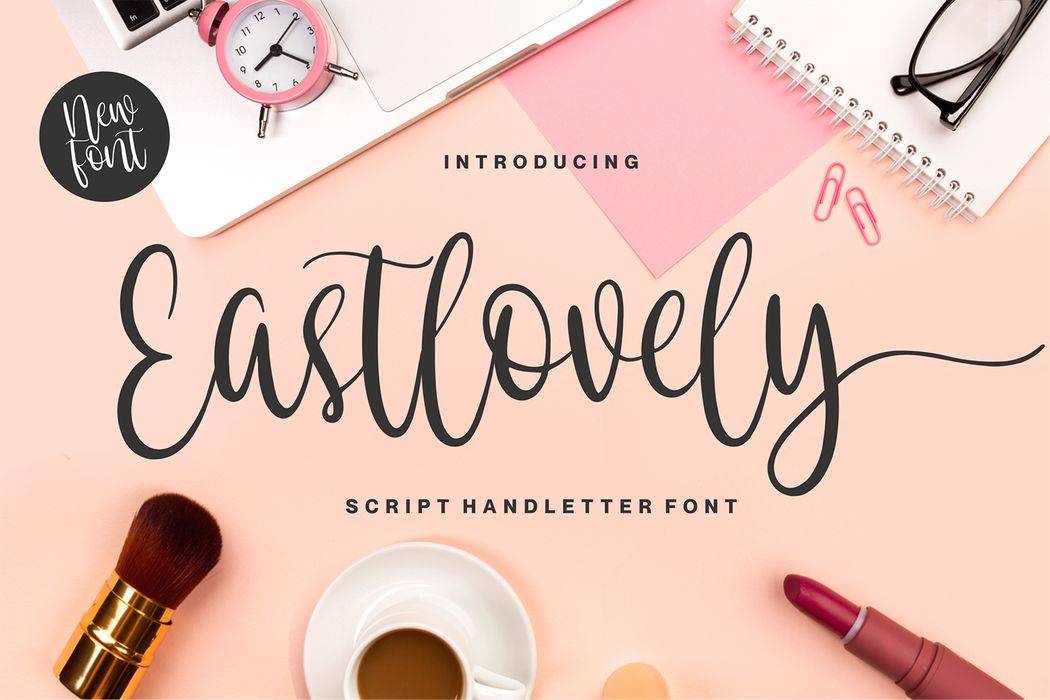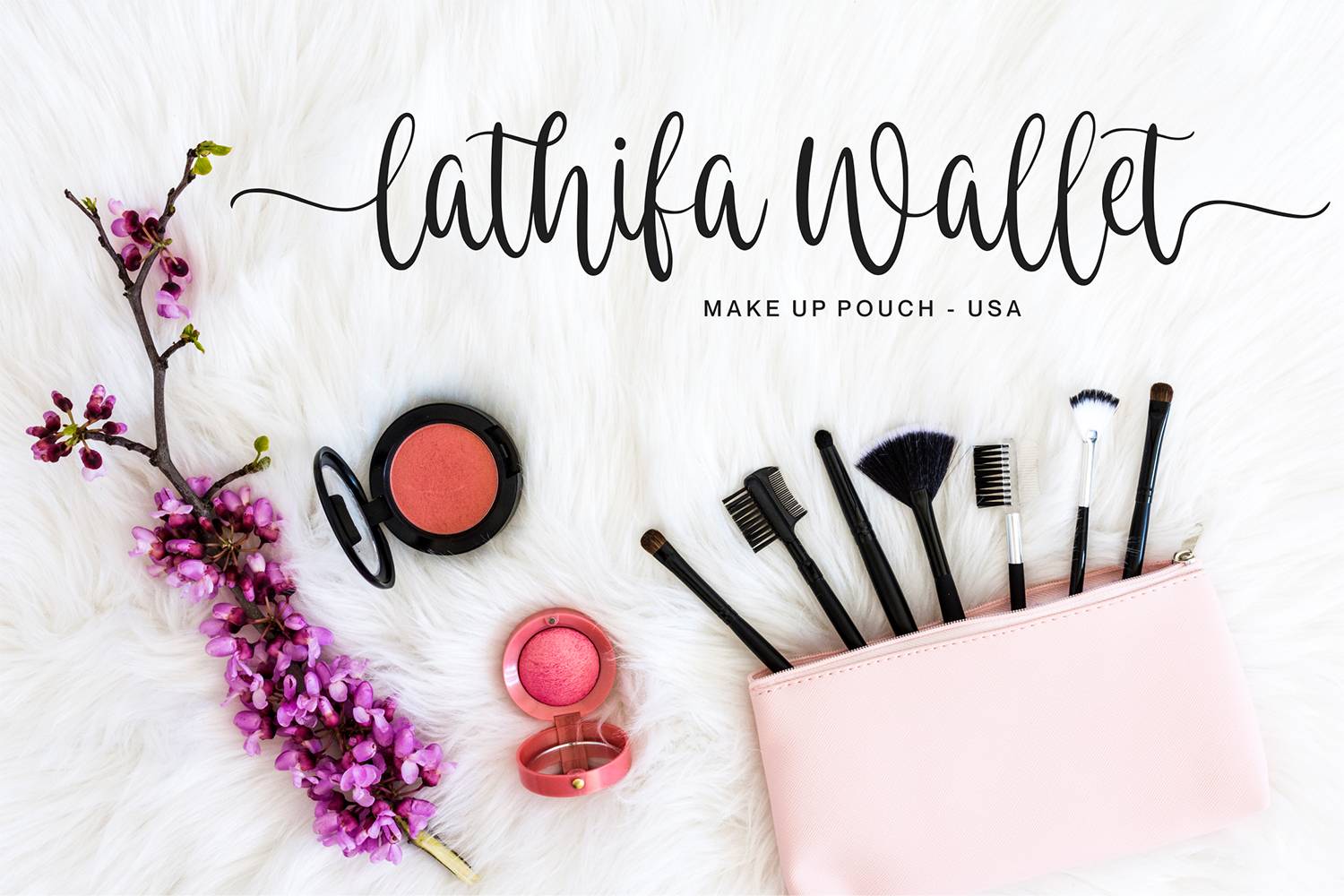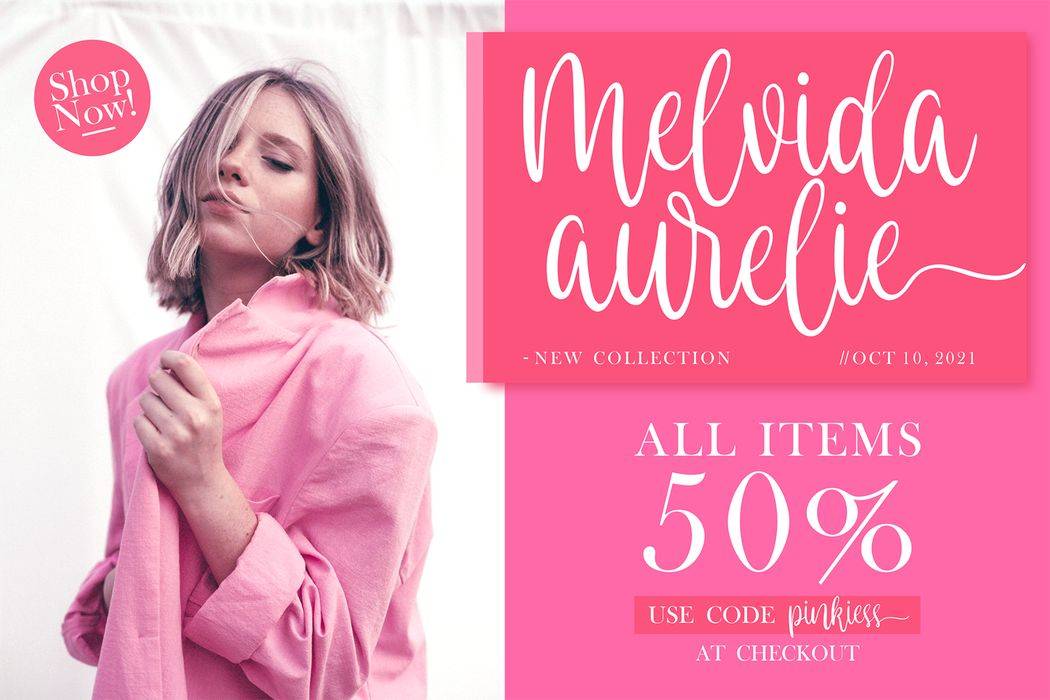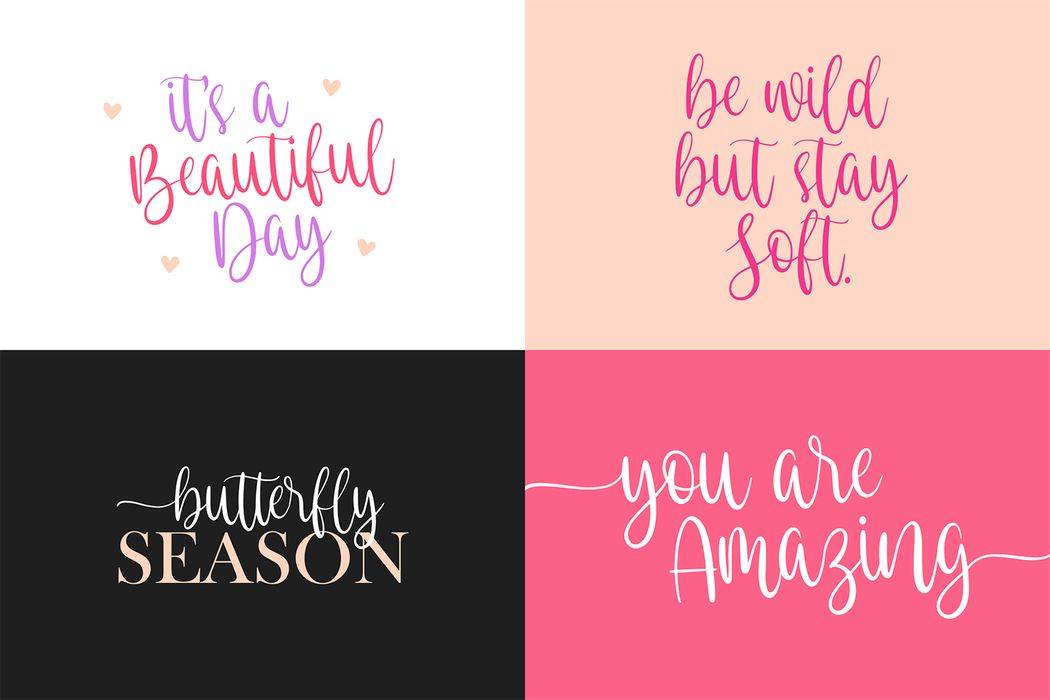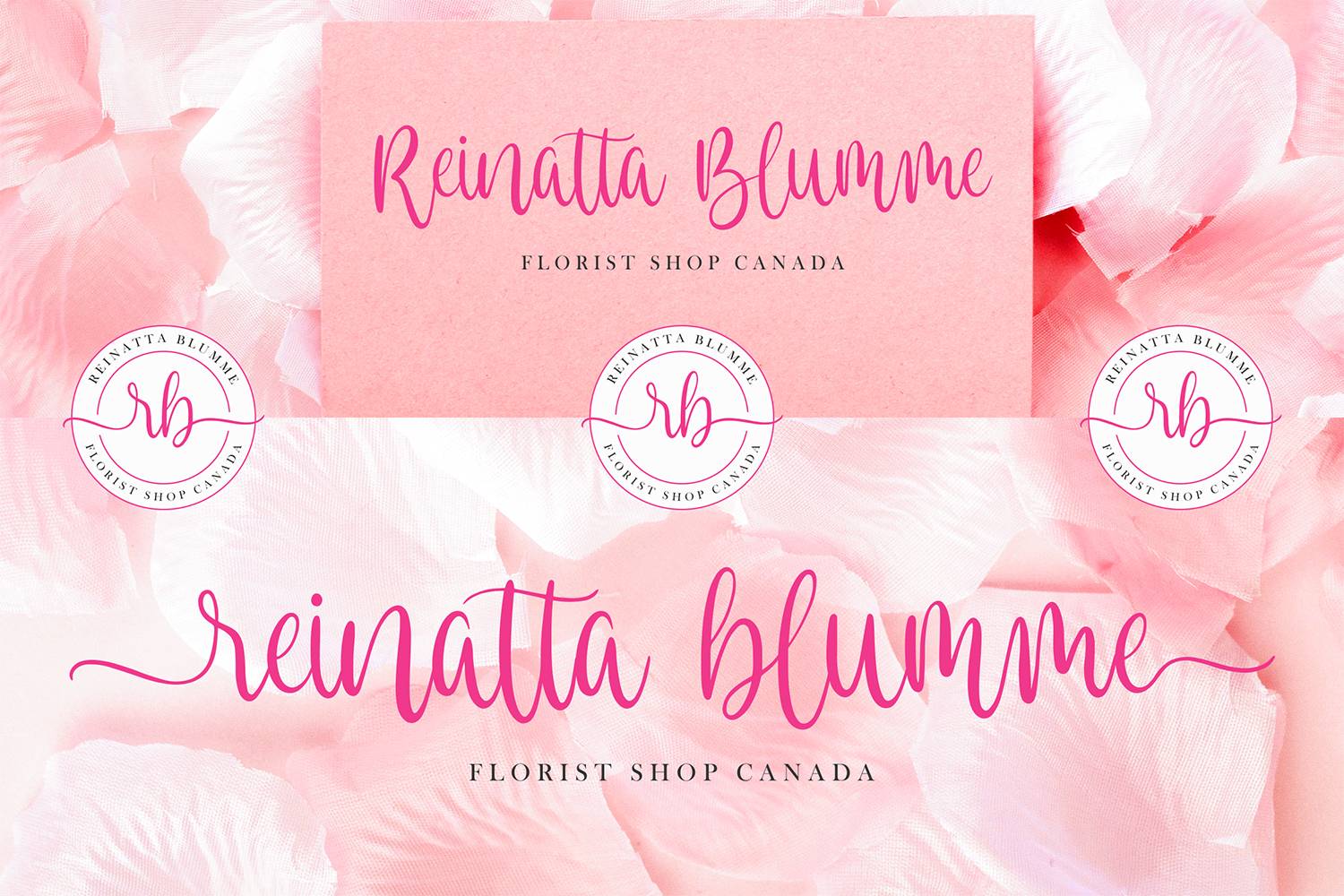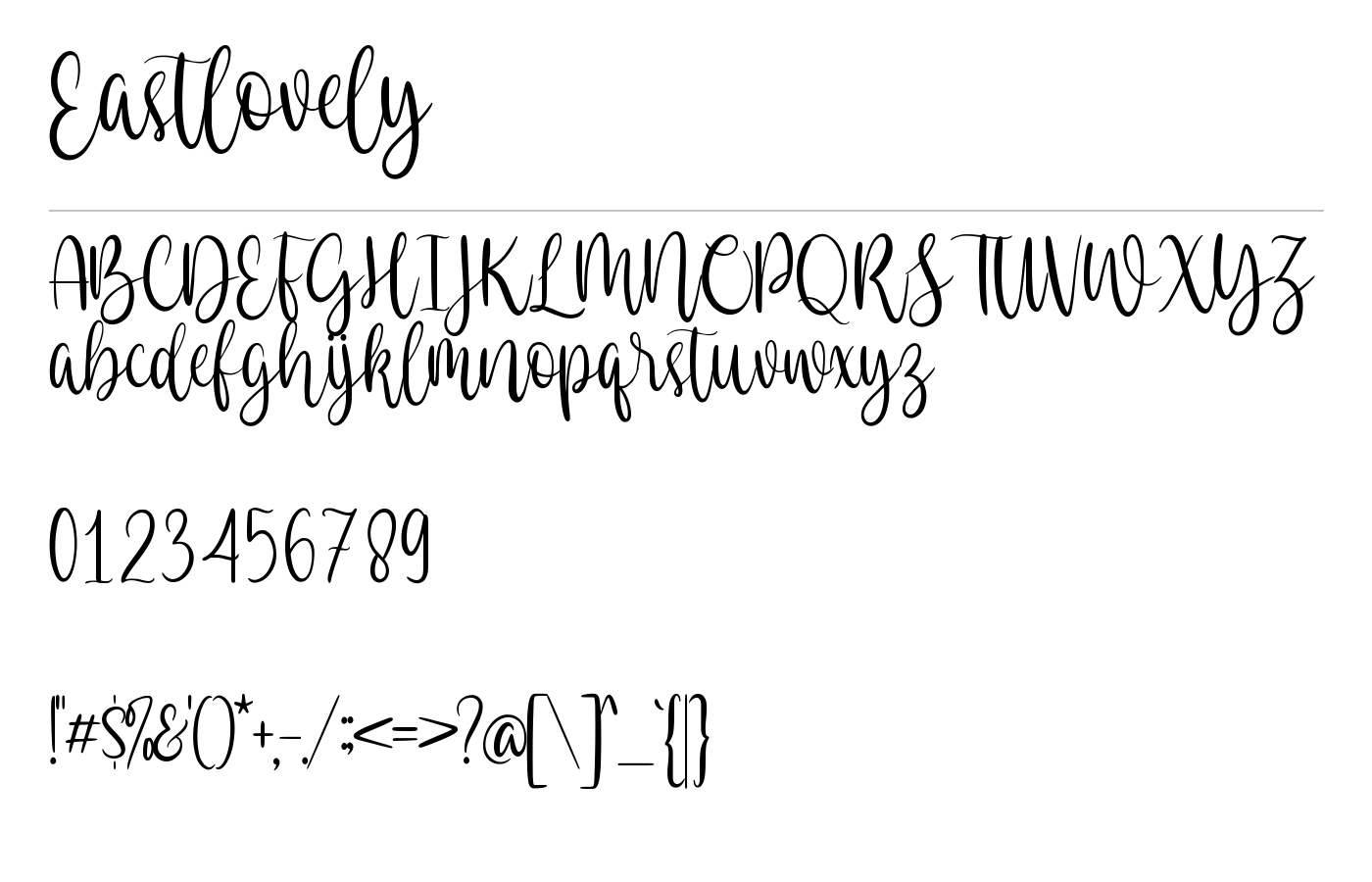
Eastlovely is a playful and elegant script font featuring slender, flowing letterforms with a handwritten charm. Its light weight and tall, narrow proportions give it a delicate and airy feel, perfect for adding a personal, creative touch to invitations, branding, and decorative headlines. This font works well for projects seeking a warm, approachable look with a stylish flair.
Eastlovely Font
About Eastlovely Font